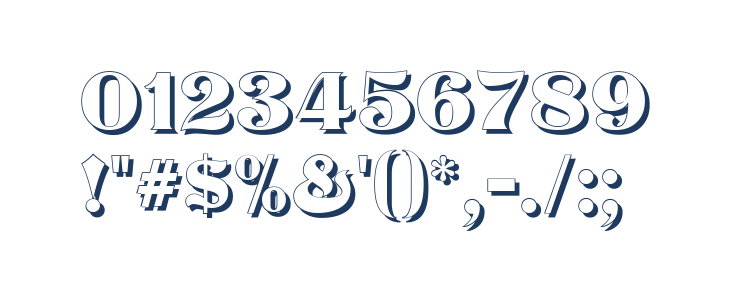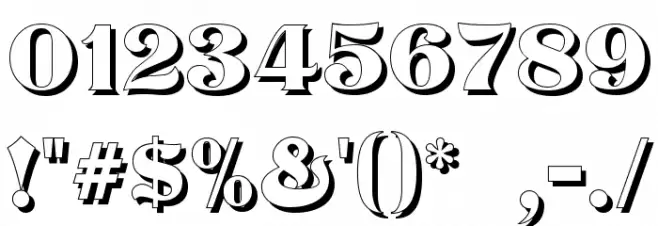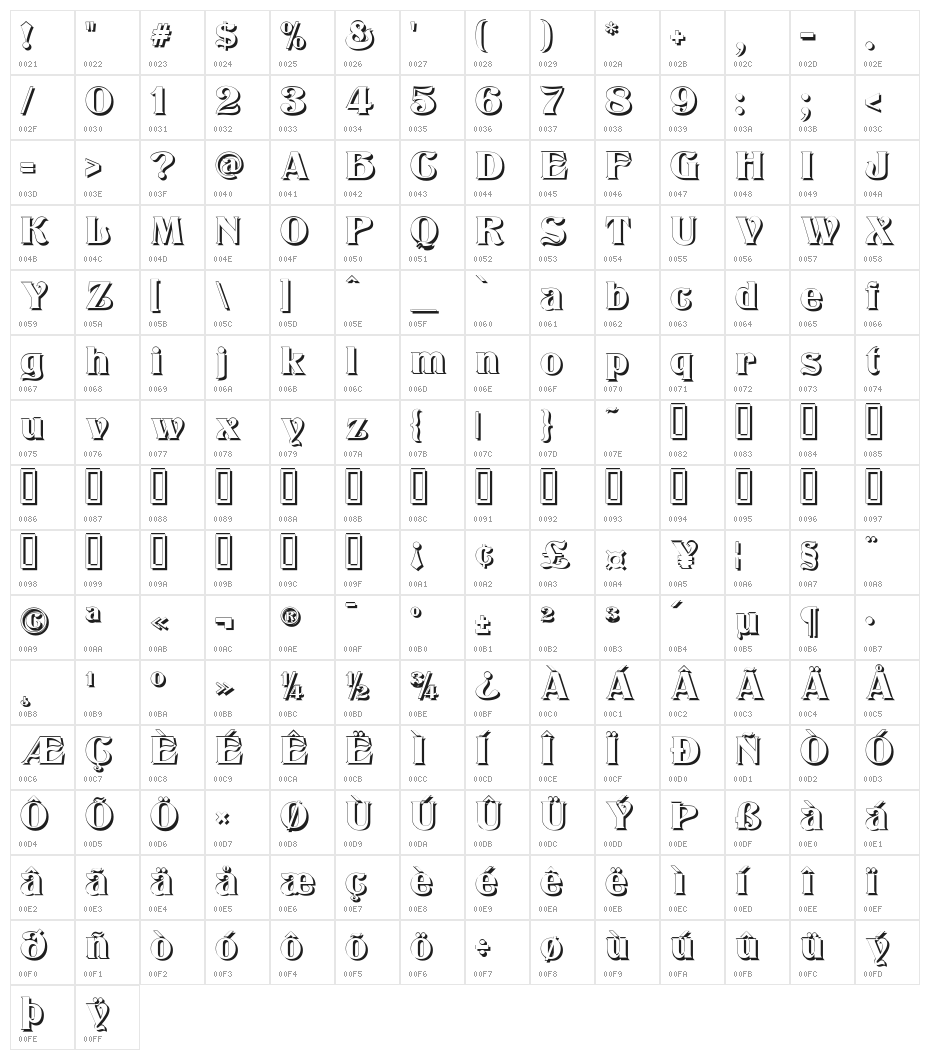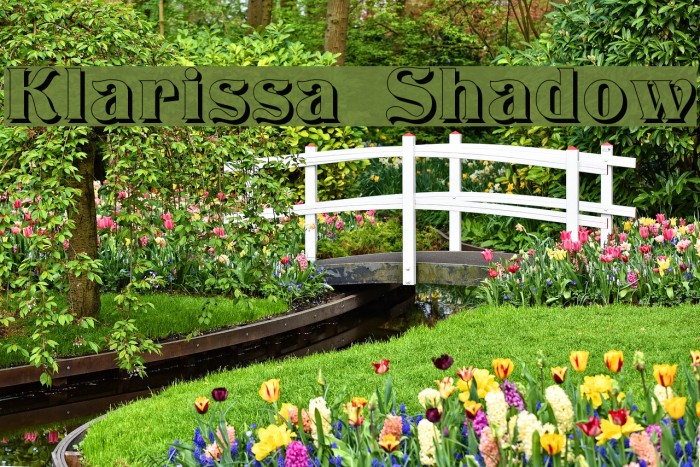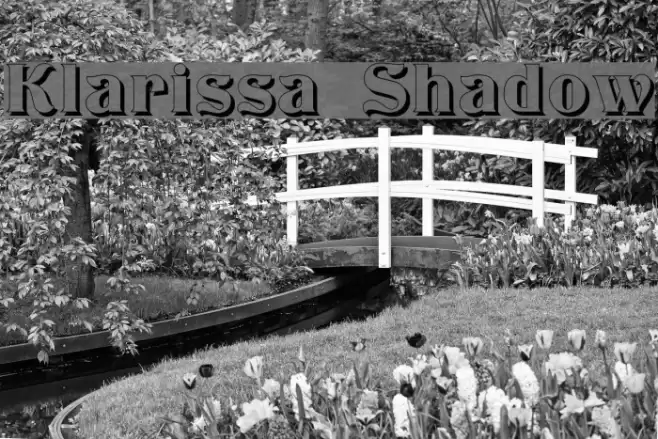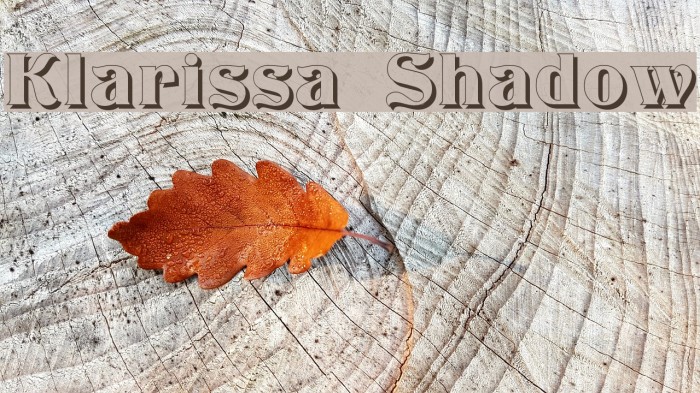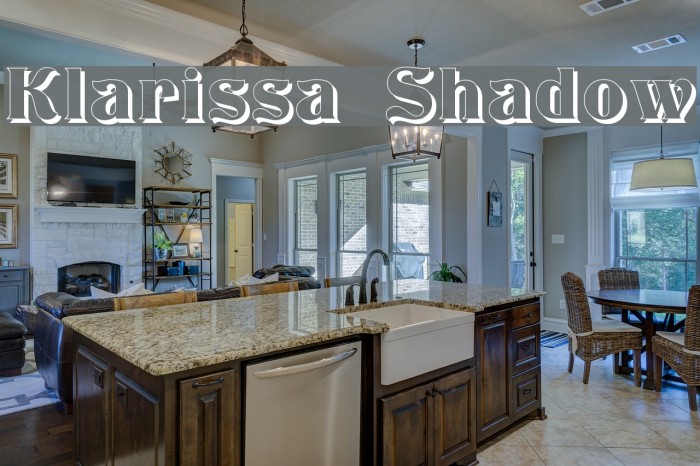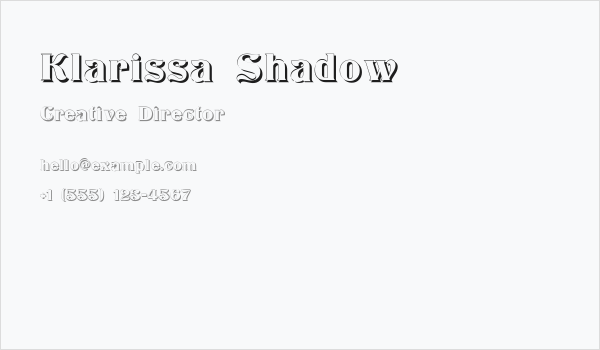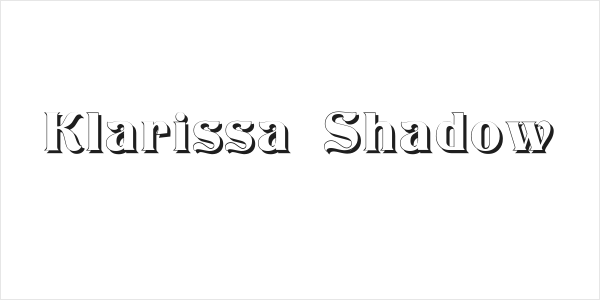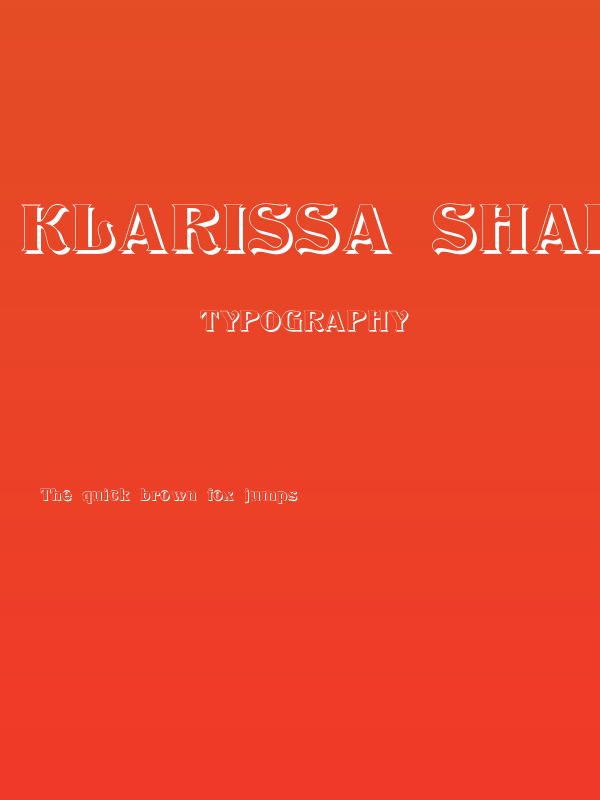
Klarissa Shadow Font
Klarissa Shadow Description
This font features a bold and striking design with a shadow effect that gives it a three-dimensional appearance. The uppercase and lowercase letters are crafted with sharp serifs and a distinct outline that enhances the shadow detail. The numbers and special characters maintain the same bold style, ensuring consistency across all elements. The font's unique shadow effect adds depth and dimension, making it ideal for eye-catching designs. Its boldness and decorative nature make it suitable for projects that require a strong visual impact.
| Proposed Projects | Ideal for posters, headlines, logos, and any design requiring a bold and impactful typeface. |